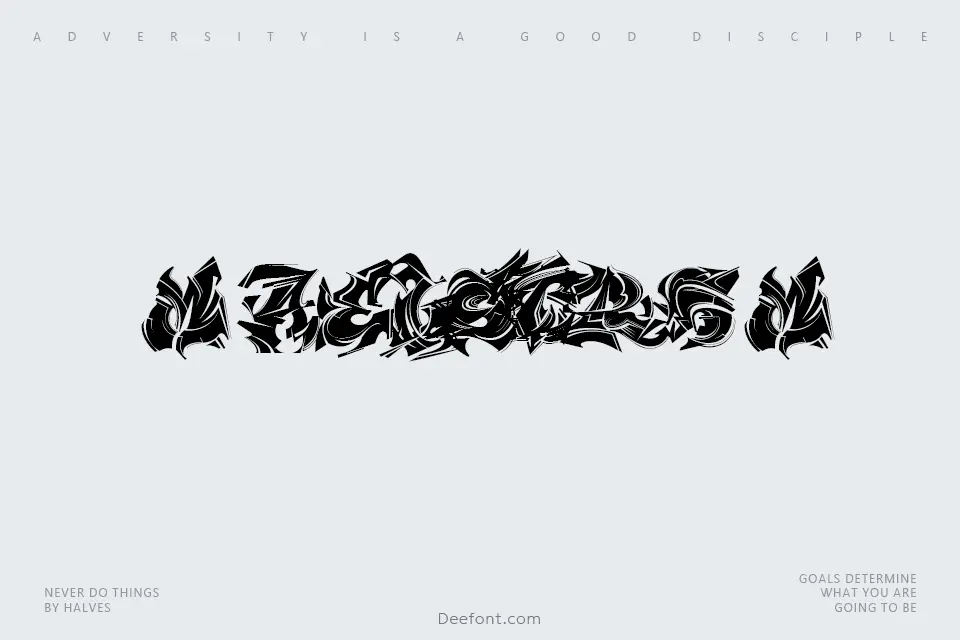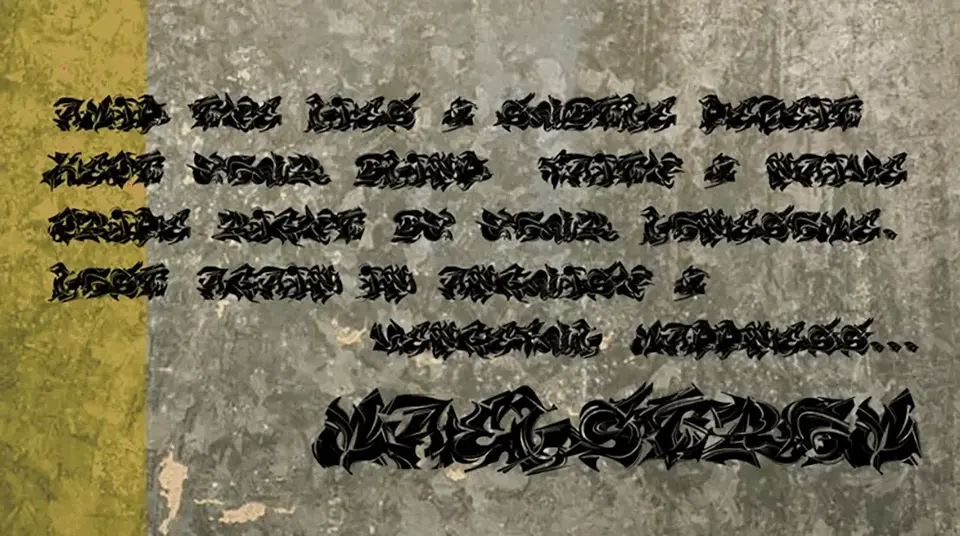
Maelstrom Font
Maelstrom is a bold and intricate graffiti-inspired display font featuring uniquely stylized characters with sharp angles and flowing curves. Each letter showcases artistic expression with densely packed elements, creating a dynamic and energetic appearance. The chaotic yet controlled design combines strong emphasis on creative expression with unconventional visual impact, making it an ideal choice for street art projects, album covers, urban-themed posters, and edgy branding materials that demand a striking statement.